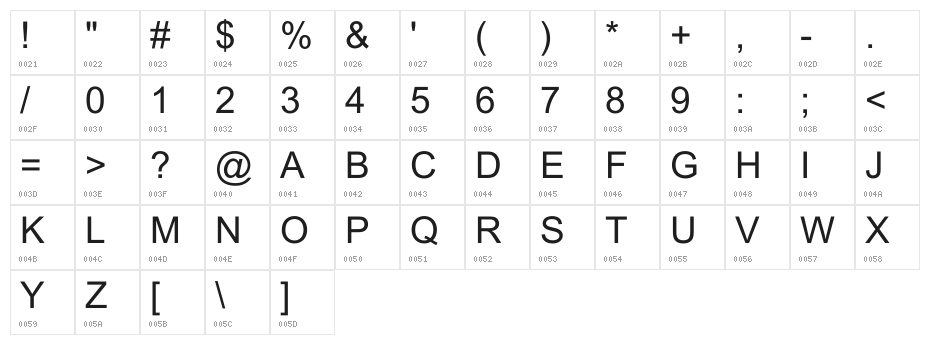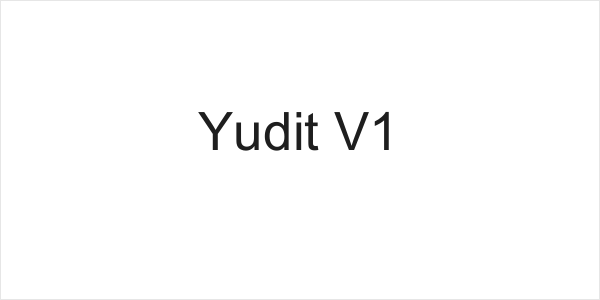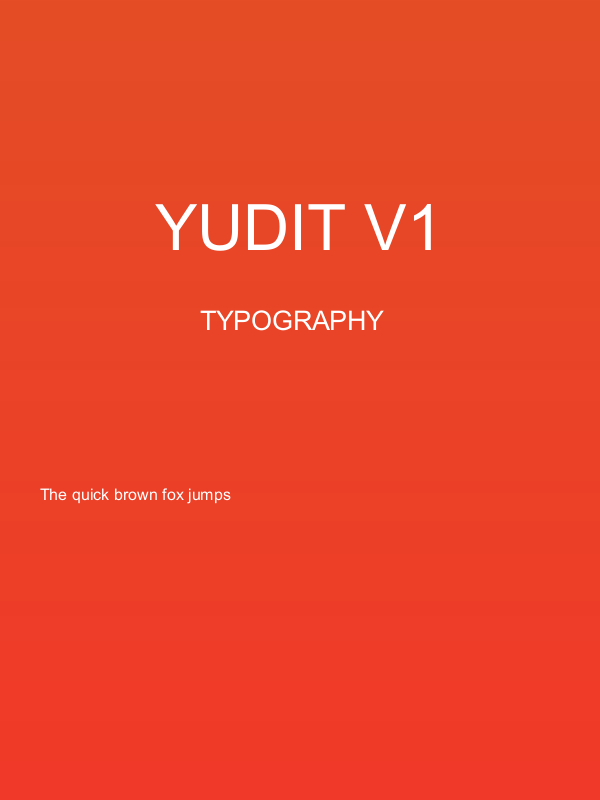
Yudit V1 Font
Yudit V1 Description
This font features a clean and modern sans-serif design, characterized by its simplicity and clarity. The letters are evenly spaced, providing a balanced and harmonious appearance. The uppercase letters are bold and assertive, while the lowercase letters maintain a consistent height, enhancing readability. The numbers are straightforward and align well with the overall style, making them suitable for various applications. Special characters are distinct and well-formed, ensuring they stand out without disrupting the flow of text. This font's versatility makes it ideal for both digital and print media, offering a professional and polished look.